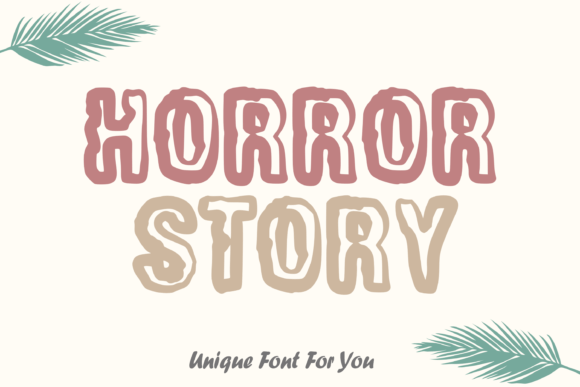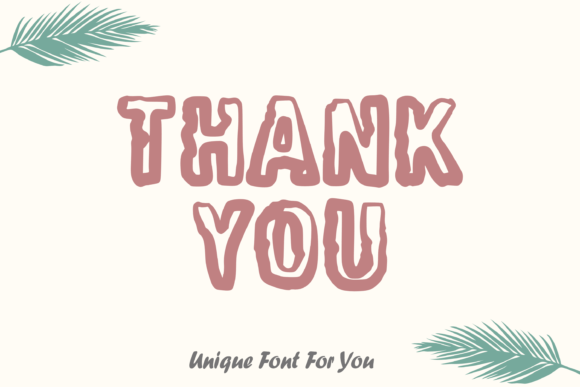
Introduction to Mystery Rimba Font
Unleash a hint of the eerie yet whimsical with Mystery Rimba, a display font exuding undeniable horror chic.
Perfectly blending spookiness with style, this typeface infuses vibrant cheerfulness into all your projects With its distinctive scream of creativity, itโs ideal for Halloween-themed crafts, branding ventures, and design creations.
Key Features of Mystery Rimba Font